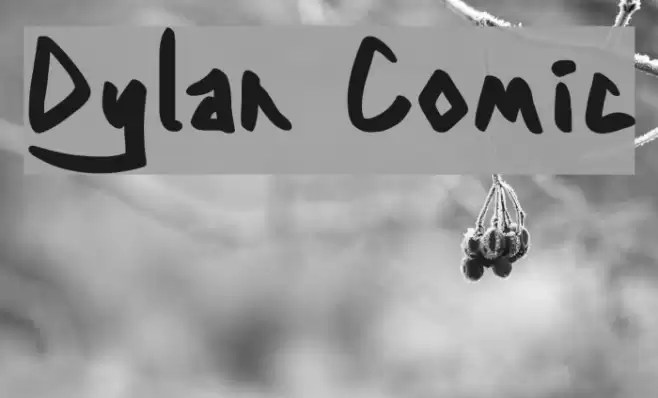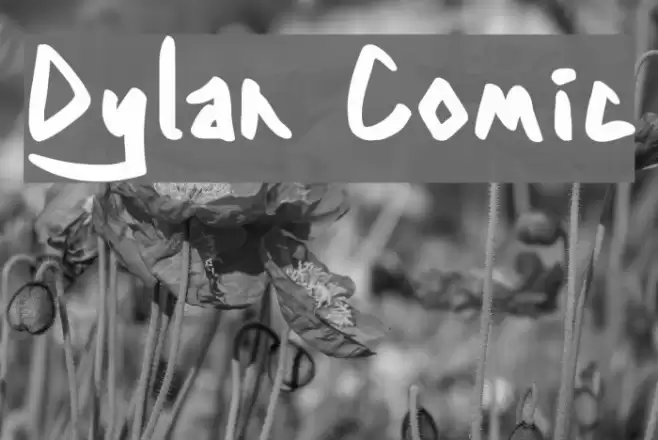
Dylan Comic Font
Dylan Comic Description
This font features a playful and dynamic style, reminiscent of comic book lettering. The characters are bold and slightly irregular, giving them a hand-drawn appearance. The uppercase and lowercase letters maintain a consistent style, with rounded edges and a slight slant that adds to the casual, informal feel. Numbers and special characters are designed to match the lively aesthetic, making them suitable for creative and fun projects. The overall look is energetic and approachable, perfect for capturing attention in a lighthearted context.
A playful, comic-style font with bold, hand-drawn characters from Comic fonts.
- Proposed Projects: Ideal for comic books, children's books, playful branding, and informal posters.
- Overall Style: Playful, Comic